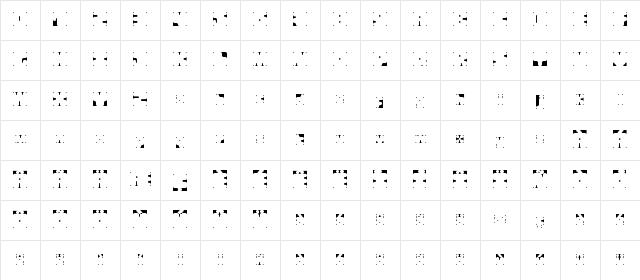
Squarescribed Regular
Designer: Noronha
Design Context for Squarescribed
Squarescribed is a composed and adaptable typeface that performs quietly and consistently across a wide range of design contexts.